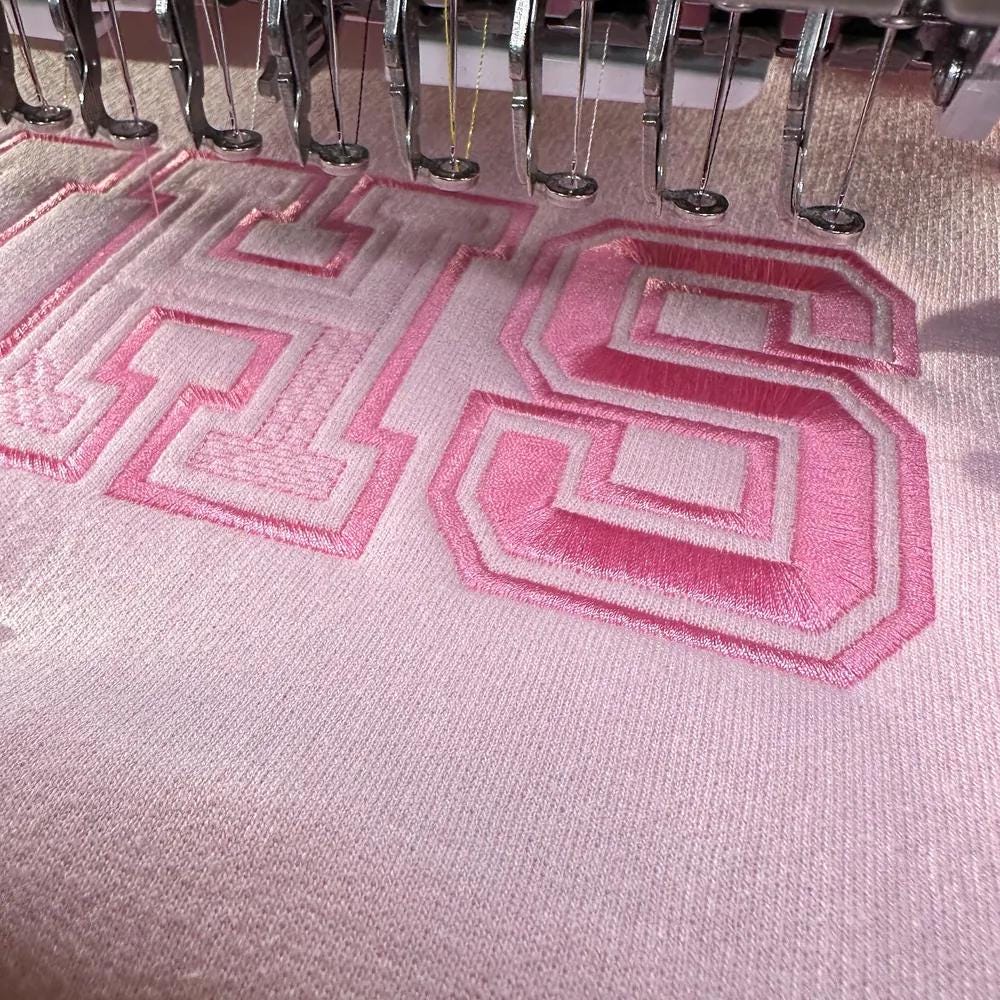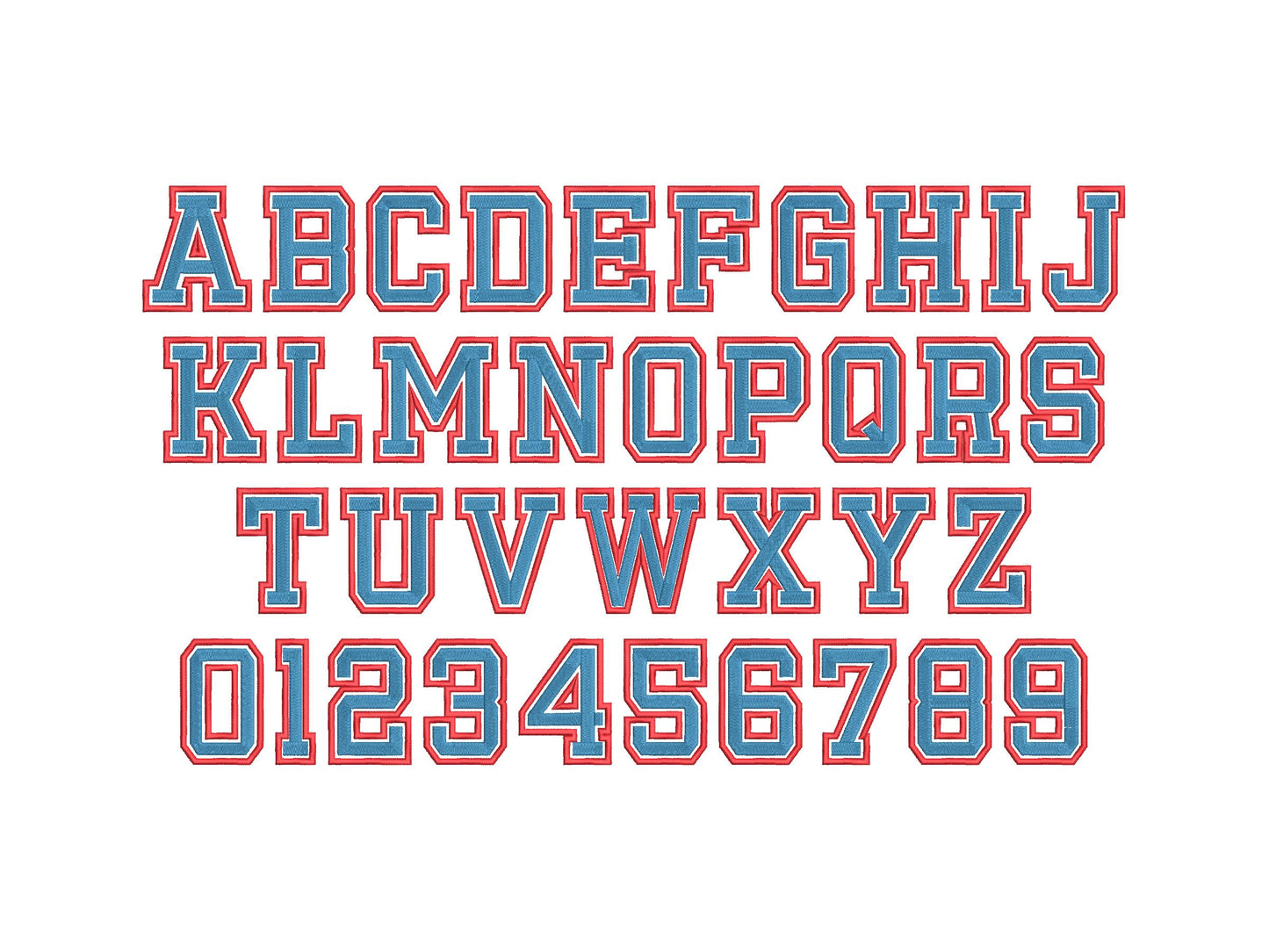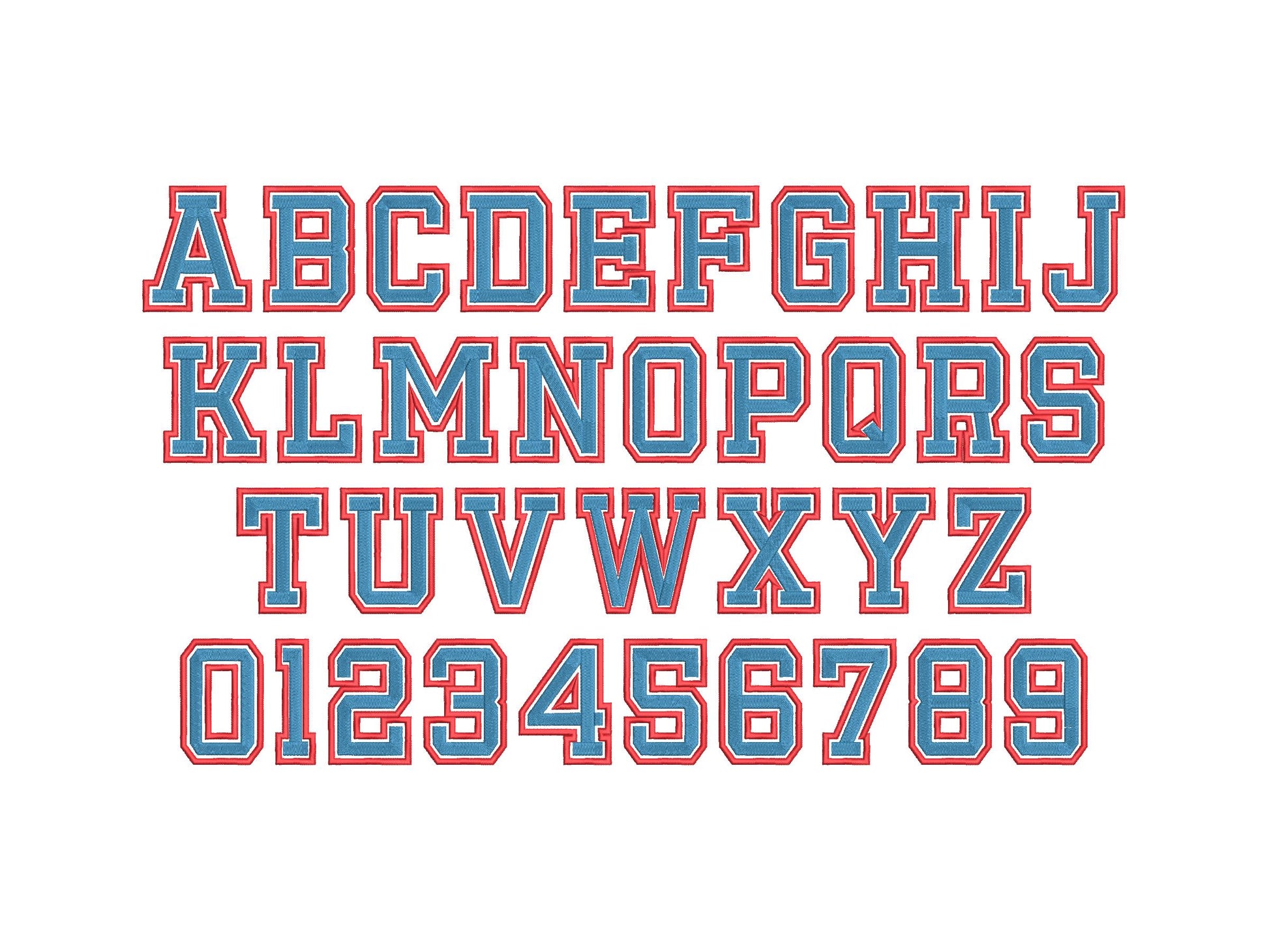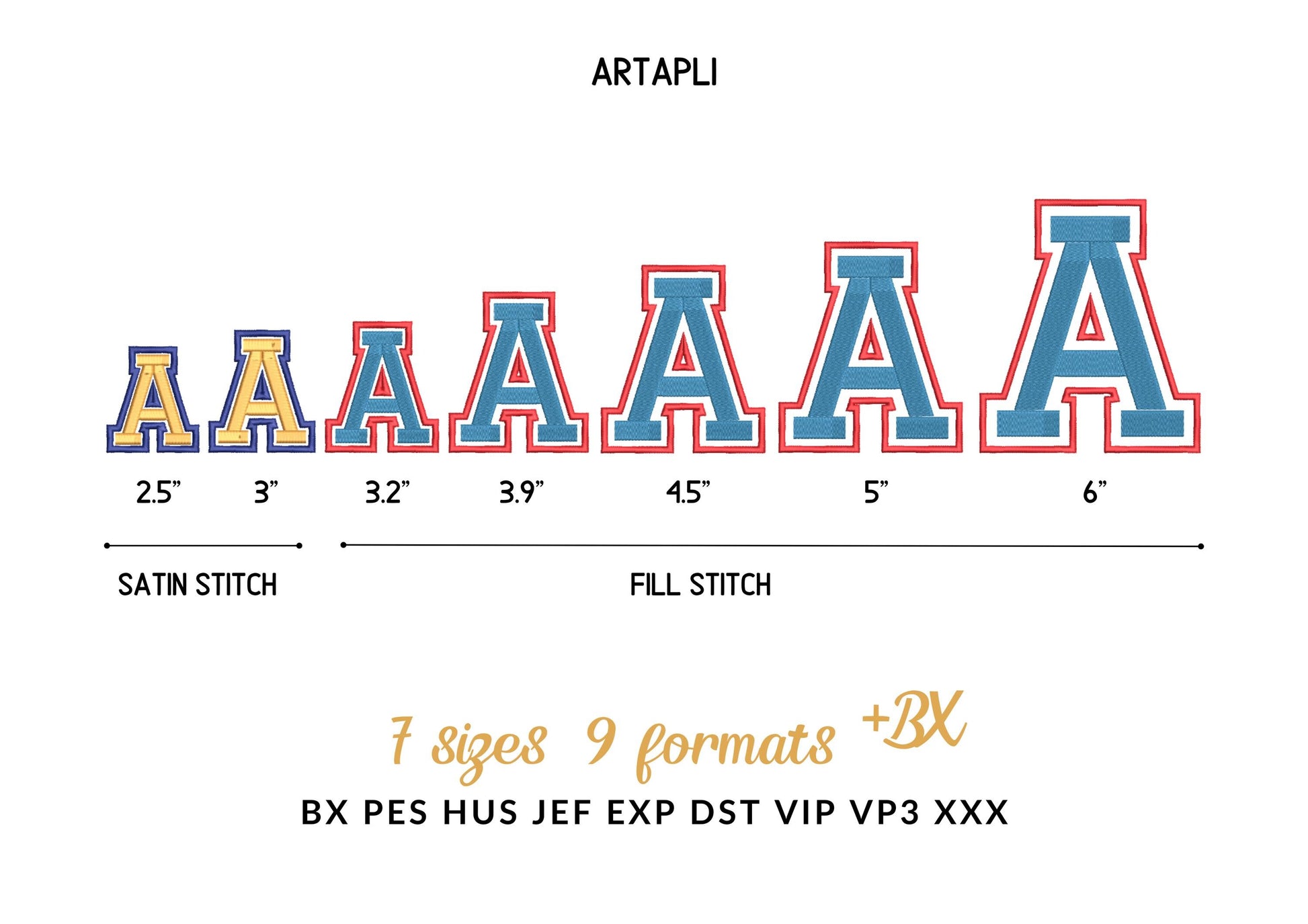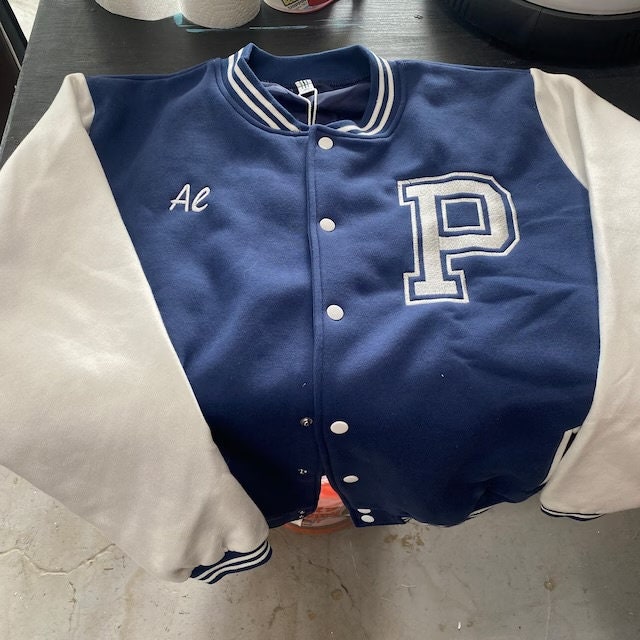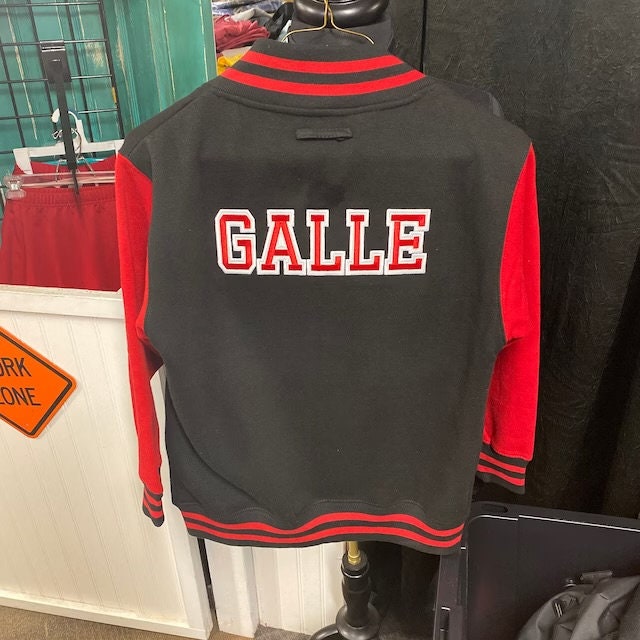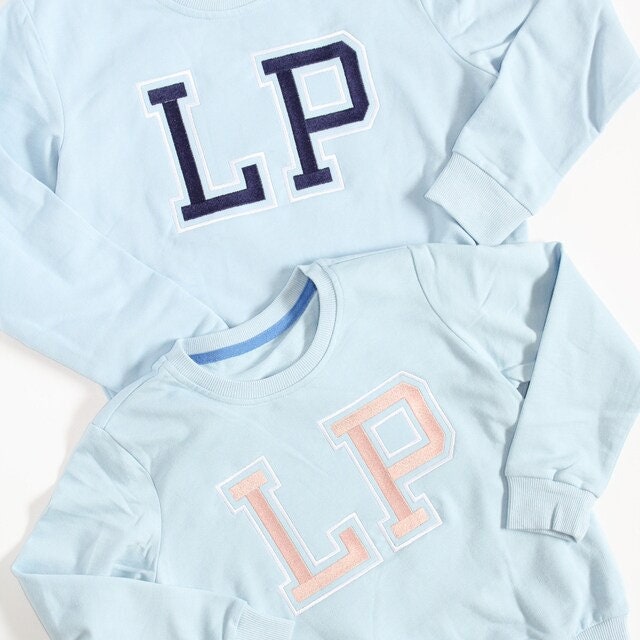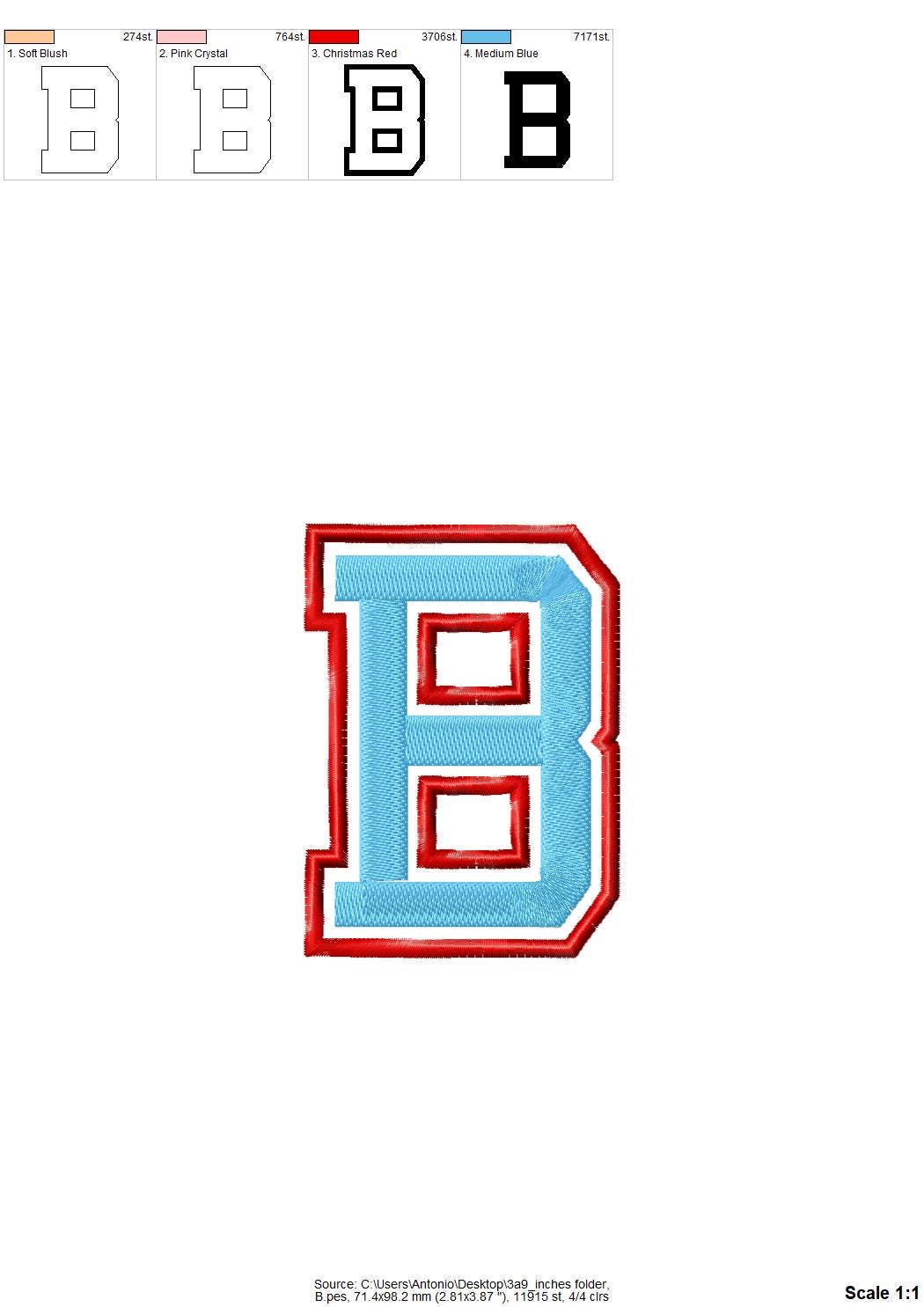
Or click to open the linkA two-color athletic applique font with a satin outline, for team names and numbers on jerseys, hoodies and bags.
A large applique letter with a satin outline, and an inner letter stitched on top in satin in the smaller sizes and in fill in the larger ones. Seven sizes: 2.5, 3, 3.2, 3.9, 4.5, 5 and 6 inches.